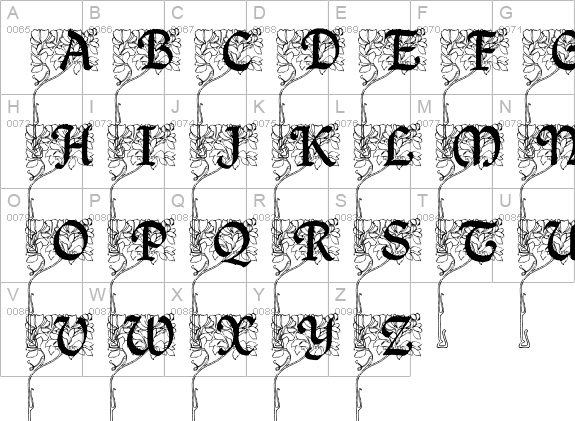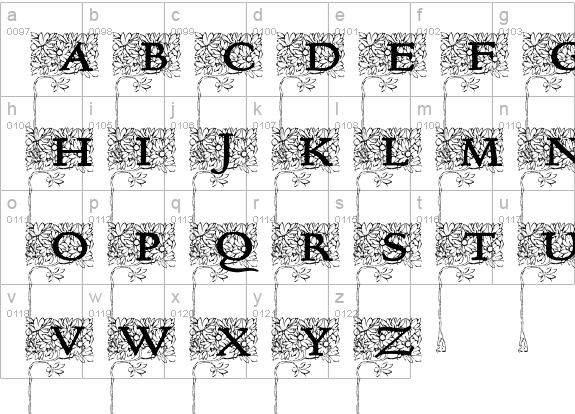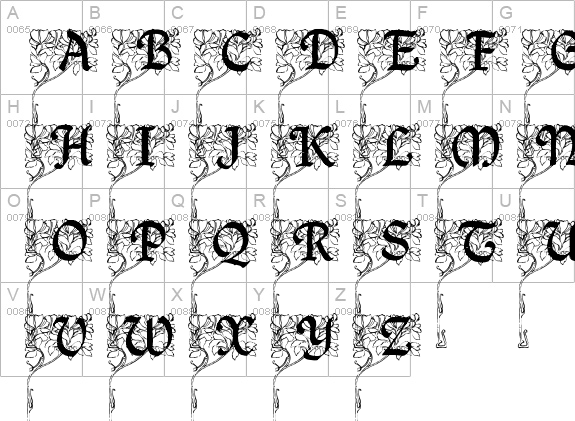
Arborial_Initials Font Details
Arborial_Initials font is a captivating and elegant typeface that exudes sophistication and charm. With its intricate floral-inspired initials, this font adds a touch of whimsy to any design project. The detailed craftsmanship of each letter gives Arborial_Initials a unique and artistic appeal that is sure to make your work stand out. Best of all, Arborial_Initials font is available for free download at FontsMarket.com. This means you can easily access this stunning font and incorporate it into your designs without any cost. Whether you're working on invitations, posters, or branding materials, Arborial_Initials font is a versatile choice that will elevate your creations to new heights. Download it today and unleash your creativity with this beautiful and freely available typeface.